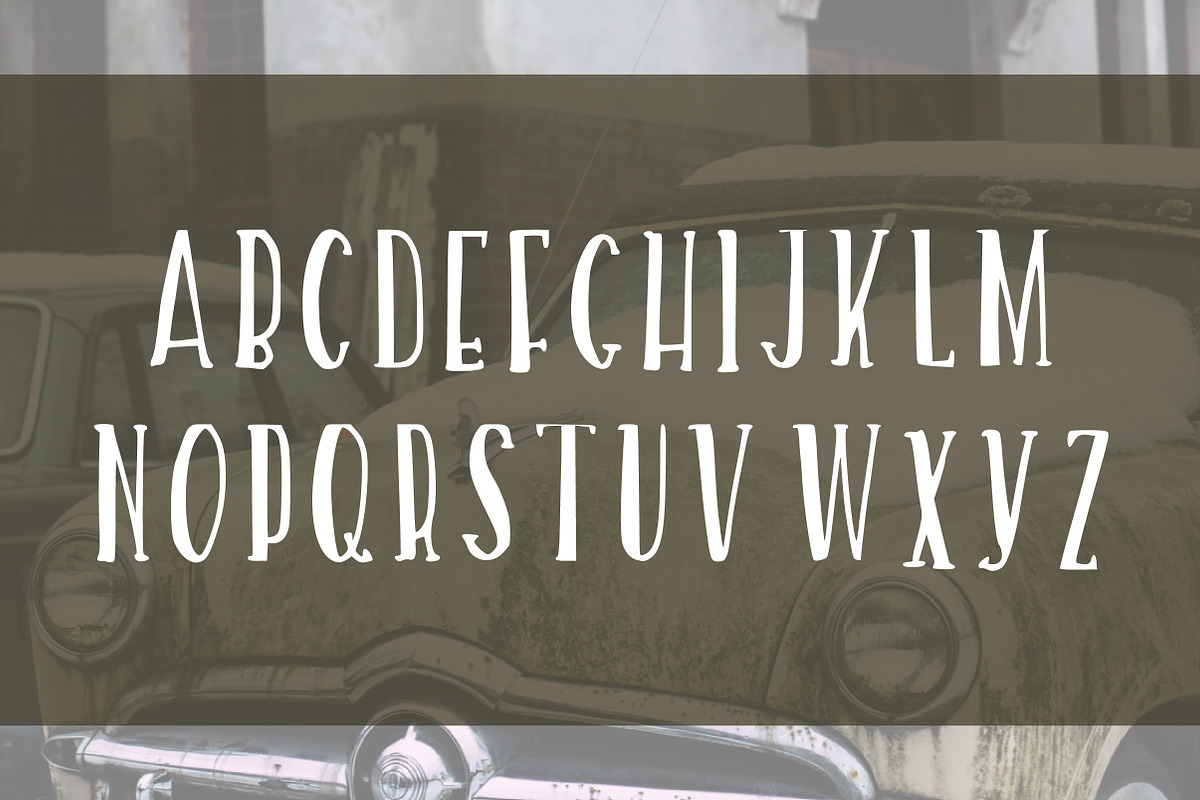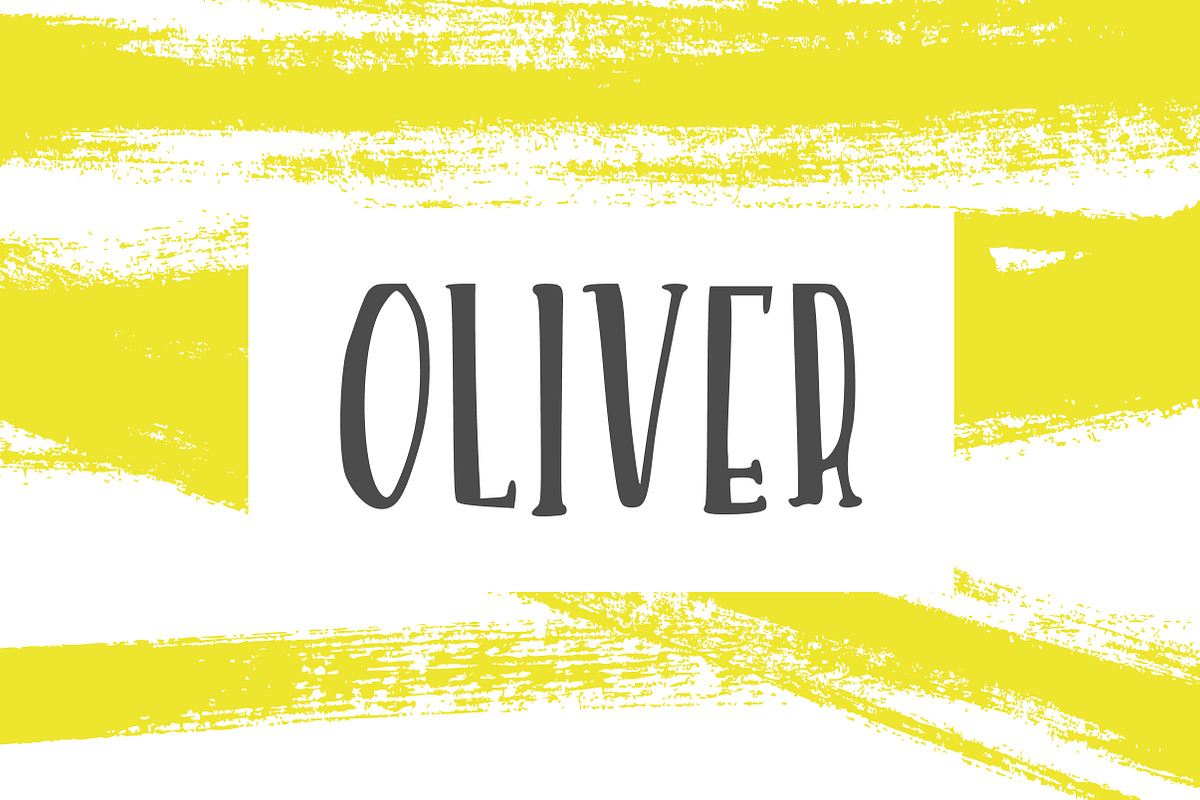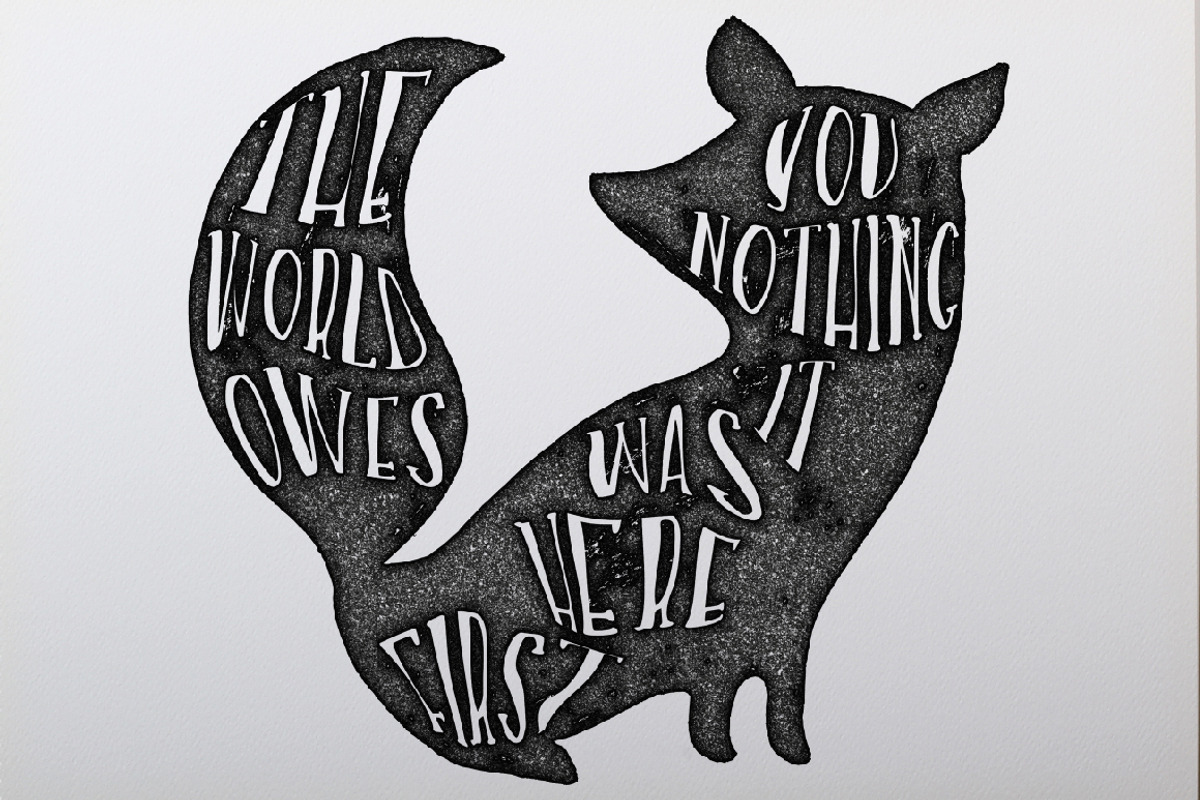
Oliver- HandDrawn Font
Oliver- HandDrawn Font by Shelly Laslo Illustration is a font selected for branding, posters, packaging, typography.
Why Oliver- HandDrawn Font is worth a look
Oliver- HandDrawn Font by Shelly Laslo Illustration fits naturally into Branding, posters, packaging, typography.